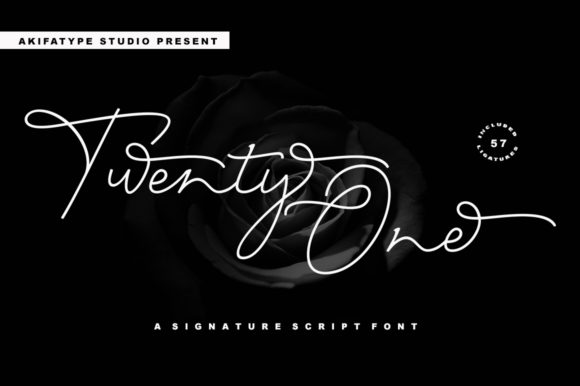
In a world of digital expression, where words dance on screens and pixels come alive, allow us to introduce you to Twenty One Script Font – a masterpiece that transcends the boundaries of ordinary typography. This script font, crafted with passion by akifatype, is an embodiment of artistry and innovation, ready to transform your creative visions into stunning realities.
Twenty One Script Font is not just a collection of letters; it's an orchestra of strokes, each one harmonizing with the other to create a symphony of visual delight. Its bold and confident lines exude a sense of dynamism, while its unique letterforms captivate the eyes with their intricate details. Whether you're a seasoned designer or just starting your creative journey, Twenty One Script Font is the perfect companion to unleash your imagination and make a lasting impact.
Dive into the depths of Twenty One's allure and discover a font that breathes life into words. Its enchanting curves and playful flourishes add a touch of whimsy and elegance to any project, whether it's a captivating logo, a heartfelt invitation, or a stunning social media post. Its versatility knows no bounds, making it a perfect choice for a wide range of design endeavors.
With Twenty One Script Font as your creative ally, you'll find yourself immersed in a world of endless possibilities. Let your imagination soar as you craft designs that captivate and inspire. Its unique charm will elevate your projects to new heights, leaving your audience spellbound and eager for more.
Make Twenty One Script Font your go-to font for expressing your individuality and making a statement that resonates with your audience. Its bold presence and captivating details will transform your designs into memorable experiences, leaving an indelible mark on the hearts and minds of all who encounter them.
Don't settle for ordinary fonts that blend into the background. Embrace Twenty One Script Font, a font that dares to be different, a font that will make your designs shine and your message heard. Unleash its power and let your creativity flourish like never before.